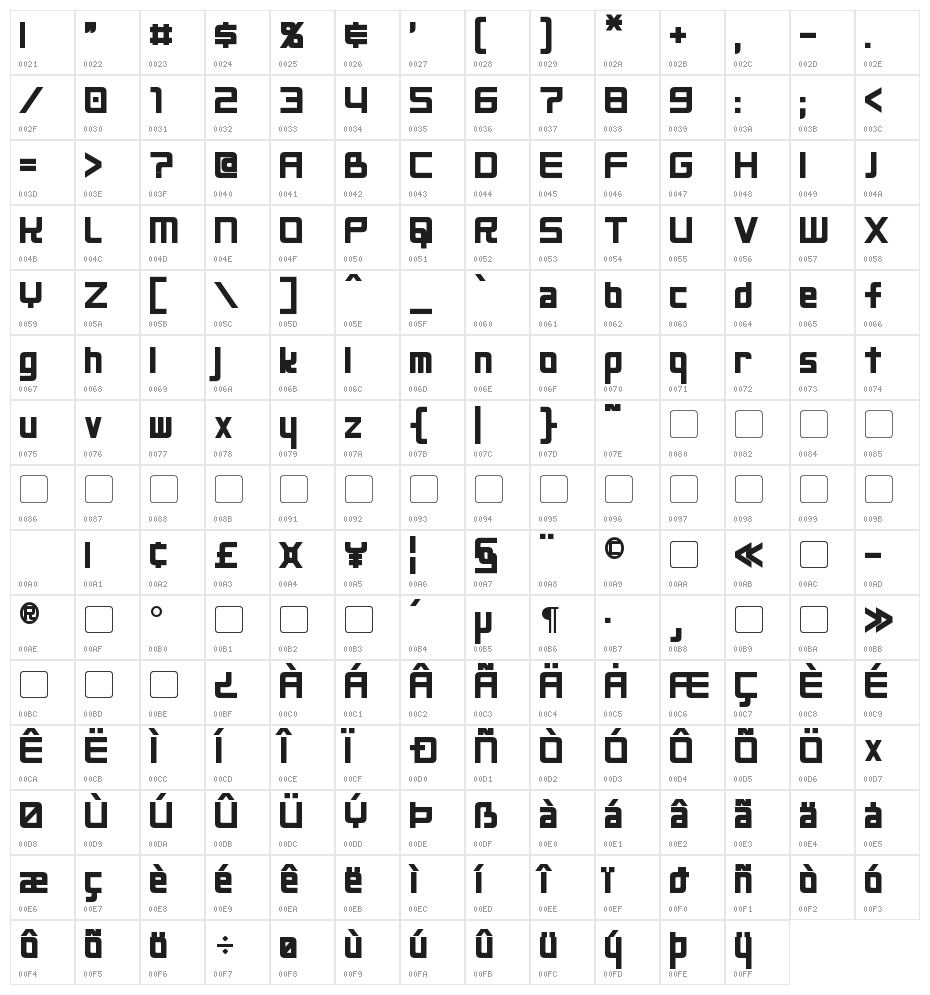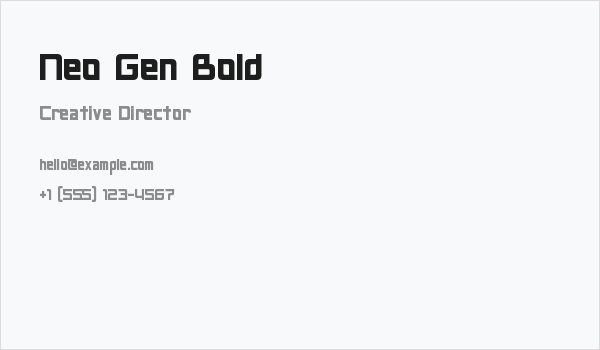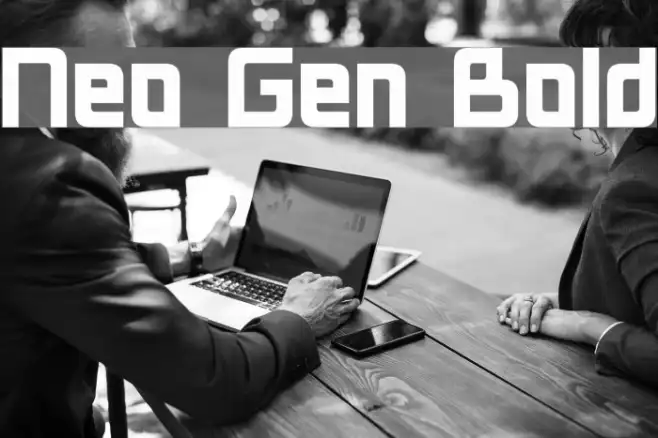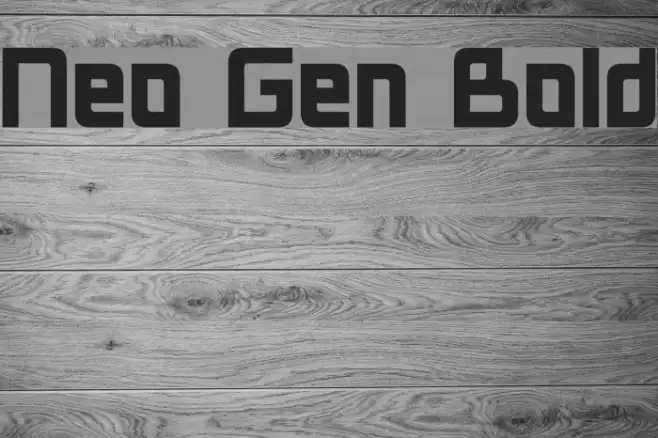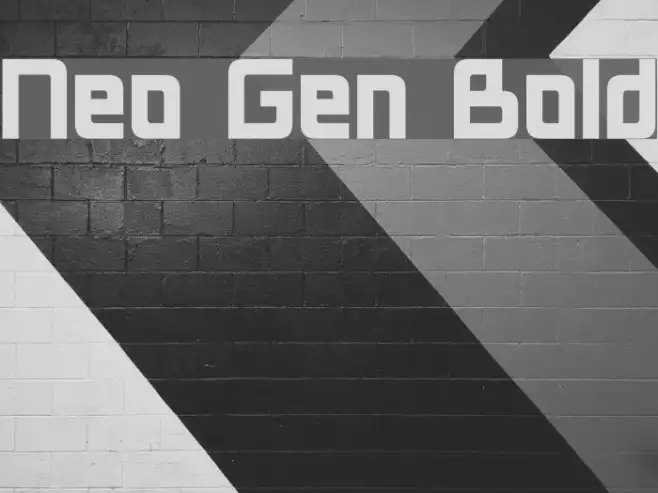
Neo Gen Bold Font
Neo Gen Bold Description
This font features a bold and modern design with a geometric and blocky structure. The uppercase and lowercase letters maintain a consistent height and width, giving it a uniform appearance. The characters have a slightly rounded edge, adding a touch of softness to the otherwise robust design. The numerals and special characters follow the same geometric style, ensuring cohesion across all elements. Its boldness and clarity make it highly legible, even at smaller sizes, while the unique design elements provide a distinctive and contemporary look.
| Proposed Projects | Ideal for futuristic branding, tech-related projects, video game interfaces, and modern advertising campaigns. |